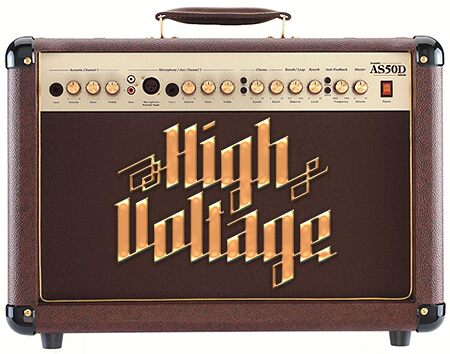
High Voltage, designed by Tobias Sommer of FontStruct, is a free angular blackletter font with a stark, contemporary build. Tall split strokes, pointed cuts, and abrupt diagonals create a tense, electrical silhouette rooted in blackletter structure.
Music merchandise suits its hard-edged, industrial attack. For packaging, event posters, and game graphics, the broken verticals can echo lightning bolts, blades, or severe architectural shapes and become part of the surrounding illustration.